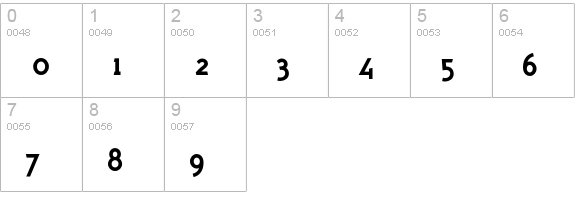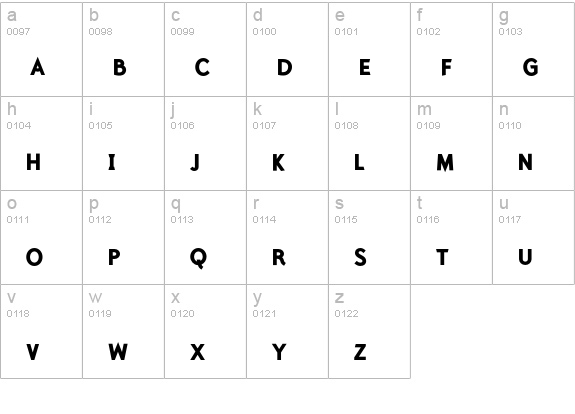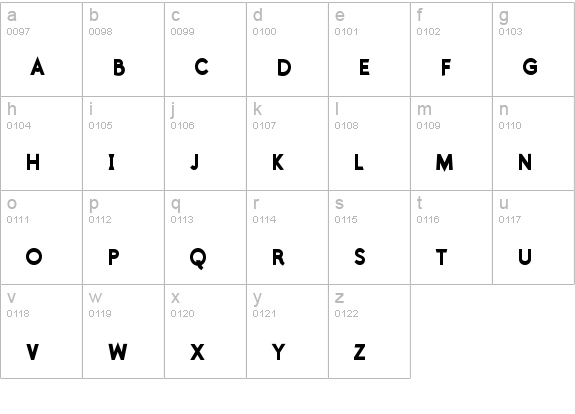
PolymerBoldCaps Font Details
PolymerBoldCaps is a striking and modern font that brings a bold and impactful element to any design project. With its unique blend of sharp lines and smooth curves, this font is perfect for creating eye-catching headlines, logos, and branding materials. The bold capital letters make a strong visual statement, while still maintaining a sense of sophistication and style. What makes PolymerBoldCaps even more appealing is that it is offered for free! Yes, you read that right - this amazing font is freely available to download at FontsMarket.com. Whether you are a professional designer looking to add a fresh touch to your work or a hobbyist wanting to experiment with new fonts, PolymerBoldCaps is the perfect choice for adding a touch of modern elegance to your projects. Download it today and start creating stunning designs that are sure to stand out!